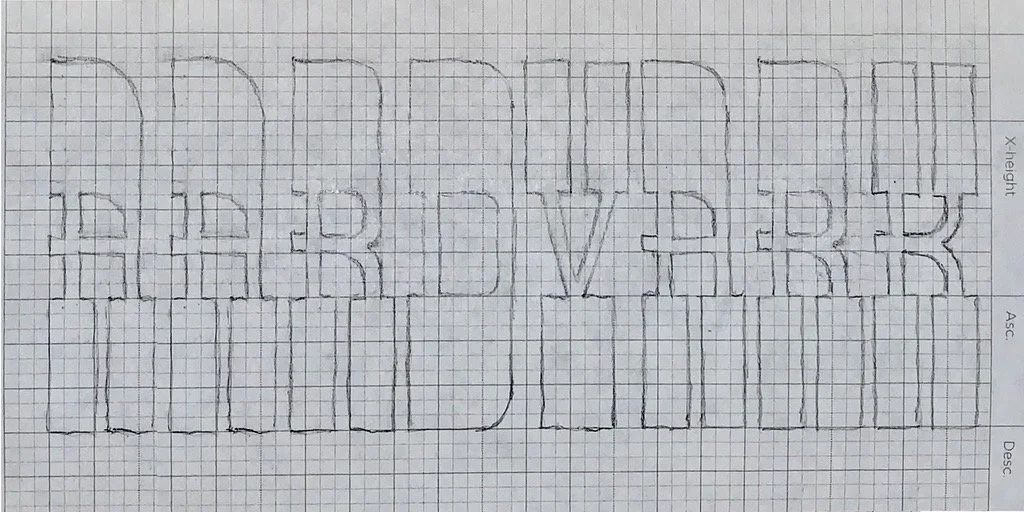
Aardvark Font
Aardvark is a bold display typeface with retro charm and a playful bite. Inspired by mid-century animation, it’s built for headlines, posters, and branding that want to stand tall and eat up attention—no ants about it.
I participated in 100 days of Lettering in 2021. I sketched the first characters from inspiration form The Ant and the Aardvark created by David PePatie & Friz Freleng. I always wanted a blue aardvark with the voice of John Byner imitating Jackie Mason. (blue ant vacuum noises).
Day 61 of 100 Days of Lettering